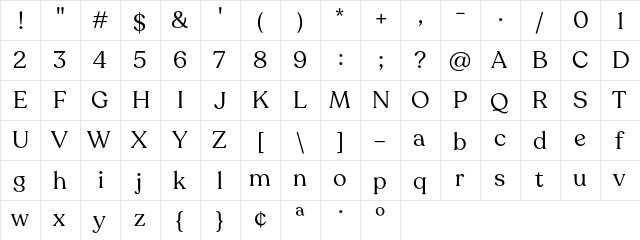
Recoleta Regular DEMO
| Foundry | Latinotype Ltda. |
| Designer | Jorge Cisterna |
Design Context for Recoleta Typeface
Recoleta offers clean, dependable letterforms without strong stylistic allegiance, making it a practical choice for designers who need flexibility.